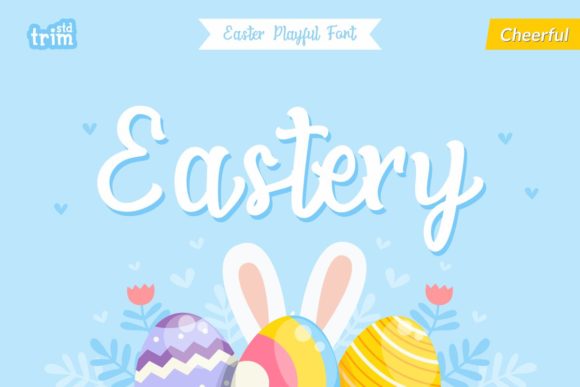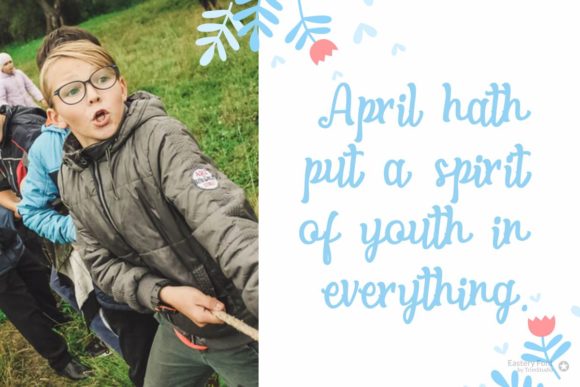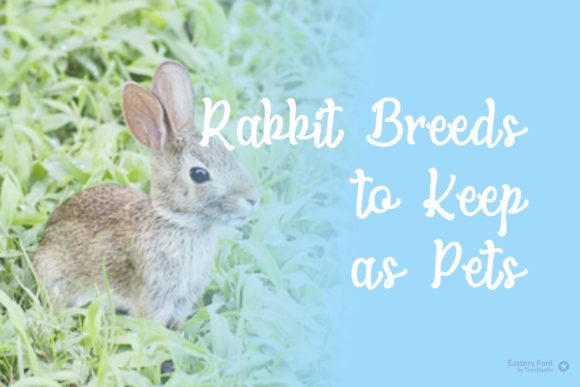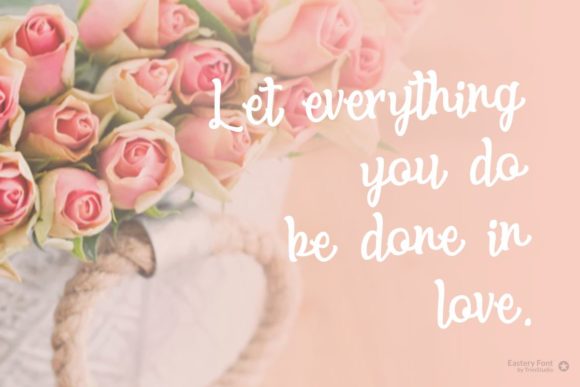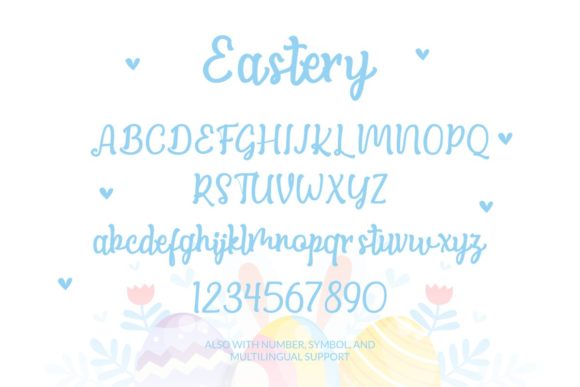
HomeScript FontsEastery Font Script Fonts Eastery Font FacebookXPinterestWhatsApp TEMPLATE FONT PREVIEW Eastery Font Poster 2 Eastery Font Poster 3 Eastery Font Poster 4 Eastery Font Poster 5 About Eastery Font Eastery is an incredibly quirky and cute script font that will take any Easter-themed crafts to the next level! DOWNLOAD ON CREATIVE FABRICAThis font is sold and delivered by Creative Fabrica. Font Canyon may earn a commission if you buy through this link. People also explored Stinkbug Font Reconnect Font Anethasya Font Orange Melon Font Ruqm Font Biscuit Font Rebirth Lotus Mandala Monogram Font Rudolf Font Jungle Font 338 0 TagsEastery Font Previous articleLesillia FontNext articleBanteuka Font LEAVE A REPLY Cancel reply Comment: Please enter your comment! Name:* Please enter your name here Email:* You have entered an incorrect email address! Please enter your email address here Website: Save my name, email, and website in this browser for the next time I comment. Personal Use Free Nuku Nuku Personal Use Free Read more about this font Carrolina Personal Use Free Read more about this font Written by Hand Personal Use Free Read more about this font Romansya Personal Use Free Read more about this font BLOG Exploring Font Trends Shaping Communication in the Digital Era Fonts, like all design elements, are subject to trends. They play a crucial role in communicating a brand's personality,... Using Fonts in Digital Marketing: Tips to Strengthen Your Brand Identity 5 Fonts That Will Dominate Design Trends in 2026 Elegant Wedding Invitation Fonts – Handwritten & Script Fonts